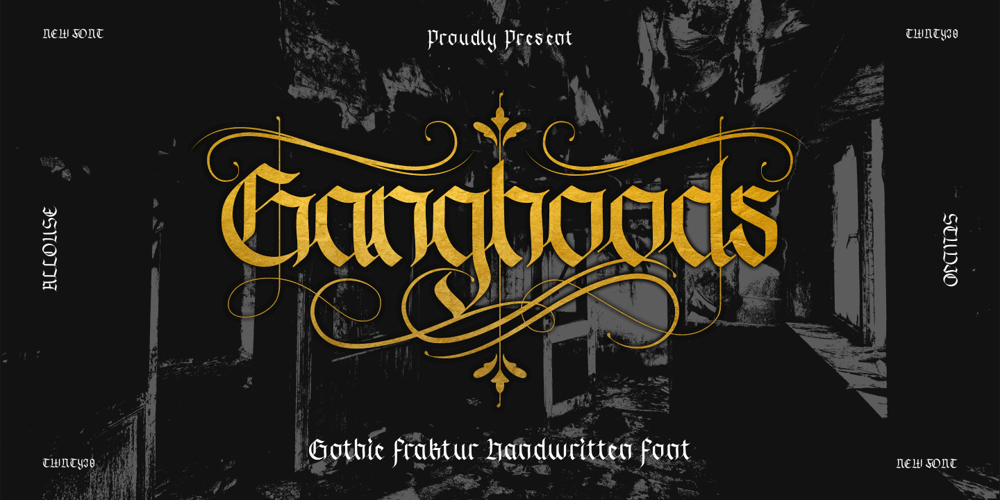
Ganghoods
Ganghoods font
Ganghoods Font Family was designed by Fachrizal Yusuf and published by Allouse Studio. Ganghoods contains 1 styles and family package options. Proudly Presenting, Ganghoods a Gothic Fraktur Handwritten Font.Ganghoods is perfect for product packaging, branding project, megazine, social media, wedding, or just used to express words above the background.Ganghoods also come with Multi-Lingual Support.Enjoy the font, feel free to comment or feedback, send me PM or email. Thank You!